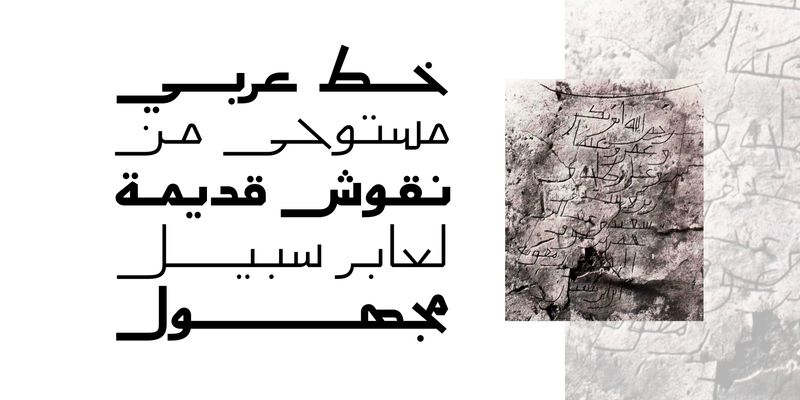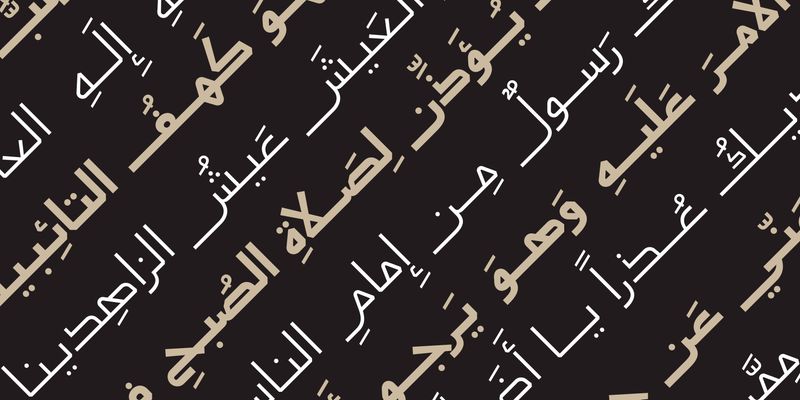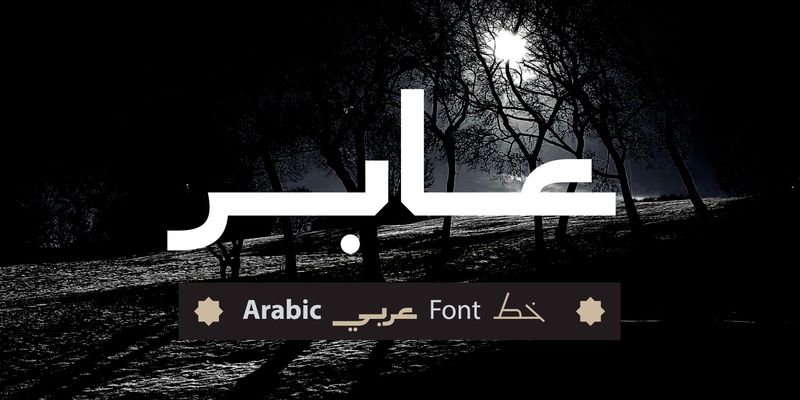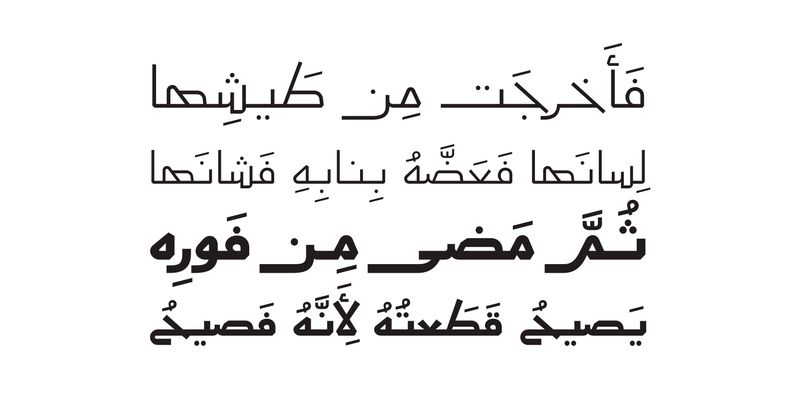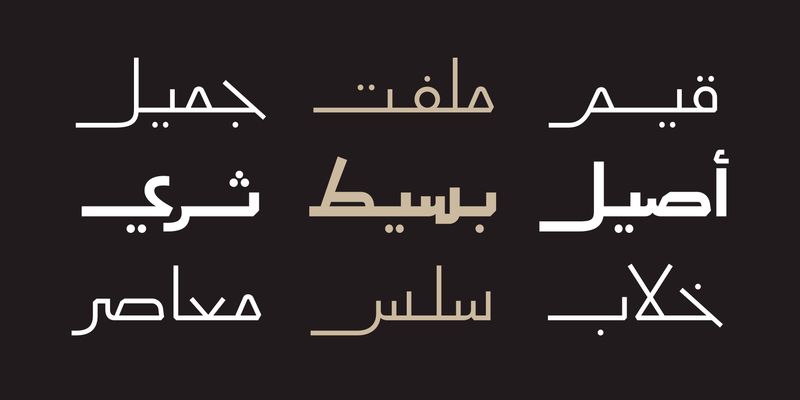
Aaber (from Aaber Sabeel, Arabic for “Wayfarer”) is an Arabic display font inspired by ancient engravings left by an unknown wayfarer on the ruins of Khalid al‑Qasri’s palace near Baghdad. The Aaber typeface consists of two weights; Regular and Bold. Its distinctive structure makes it suitable for modern design applications across web, print, and mobile interfaces.
Mostafa El Abasiry is an independent Arabic type designer whose work has helped define a new era of expressive Arabic typography. Since 2009, he has built a distinctive and influential catalogue of Arabic typefaces known for their bold geometry, modern aesthetics, and emotionally resonant visual character. His designs are widely recognized for merging the structural clarity of geometric construction with the creative freedom of contemporary display typography.
Mostafa’s approach is rooted in a balance of mathematical precision and artistic intuition. Many of his typefaces begin as geometric studies - circles, arcs, grids, and modular systems, before evolving into expressive display families with strong visual identity. Other designs explore texture, layering, and experimental forms, expanding the expressive potential of Arabic letterforms in digital environments.
In 2017, Mostafa introduced Tajreed, the first Arabic OpenType‑SVG color font ever created. This pioneering work brought textured, multi‑layered Arabic typography into mainstream digital use and opened a new category of expressive Arabic tools for designers and everyday creators. Tajreed later grew into a broader ecosystem of textured and experimental families that influenced how Arabic typography appears in mobile apps, creative platforms, and user‑generated content.
Mostafa’s typefaces have been used by a wide range of clients, from global brands such as Apple TV+ and Turkish Airlines to millions of everyday creators. Despite this reach, his design process remains deeply personal: every typeface begins with hand‑drawn sketches, geometric construction, and a search for a unique visual voice rooted in Arab visual culture.
Today, Mostafa continues to expand his catalogue with new display families, textured experiments, and modern interpretations of Arabic typographic heritage. His work aims to give designers and creators expressive tools that did not exist before - tools that make Arabic typography feel bold, modern, and alive.